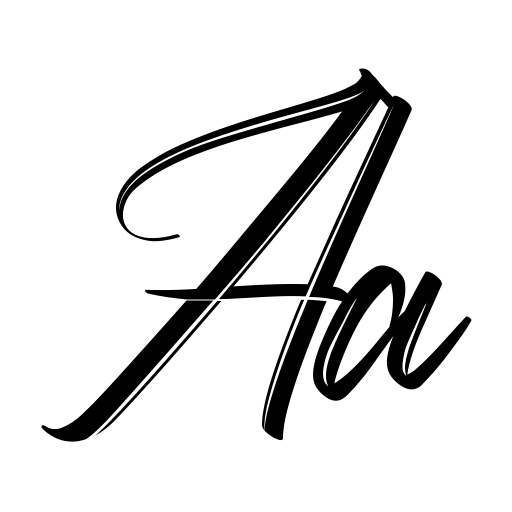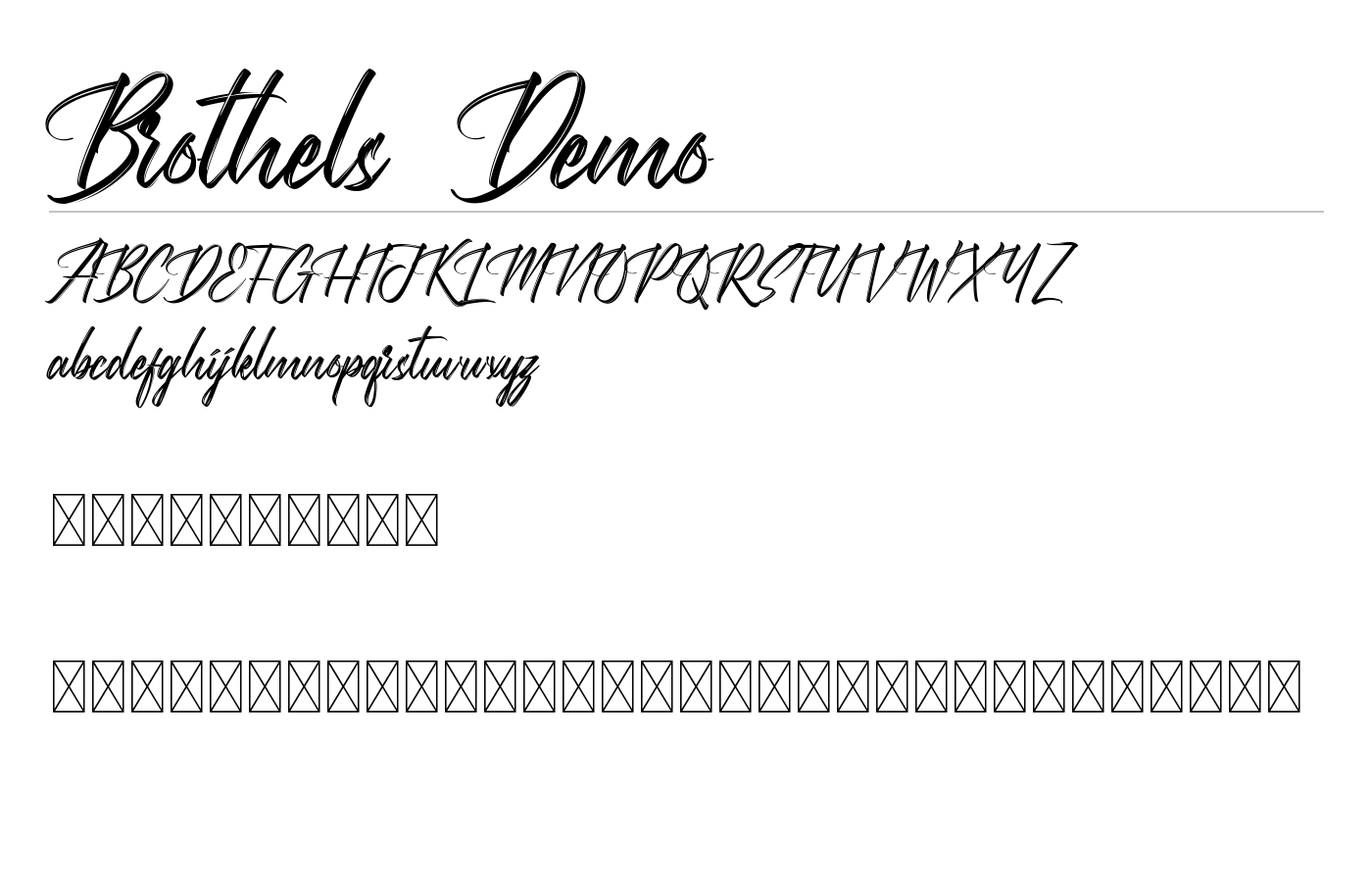
Brothels Demo is an elegant script font characterized by its flowing, handwritten style with moderate contrast and smooth, sharp strokes. It offers a refined and artistic feel, perfect for adding a personal, sophisticated touch to branding, invitations, or headlines that seek a stylish and graceful appearance. This font works well in creative projects where a unique, classy expression is desired.
Brothels Demo Font
About Brothels Demo Font
| Font family | Brothels Demo Font |